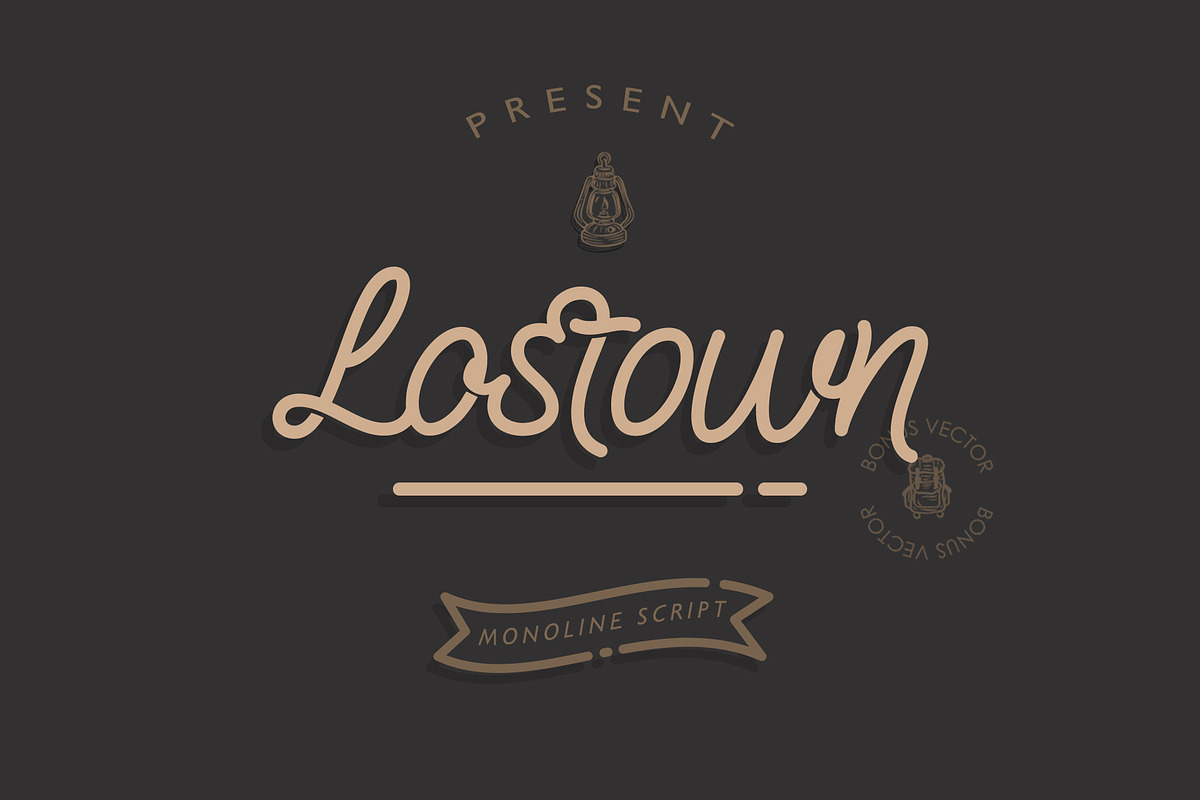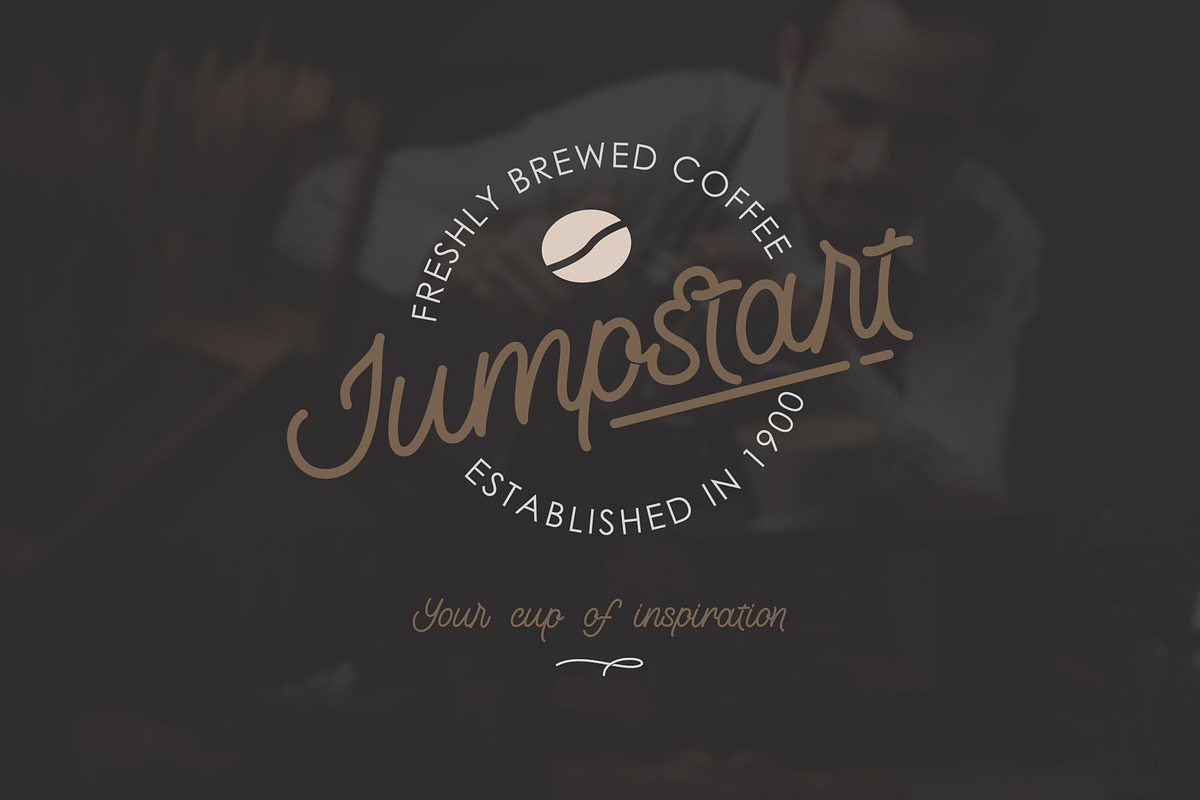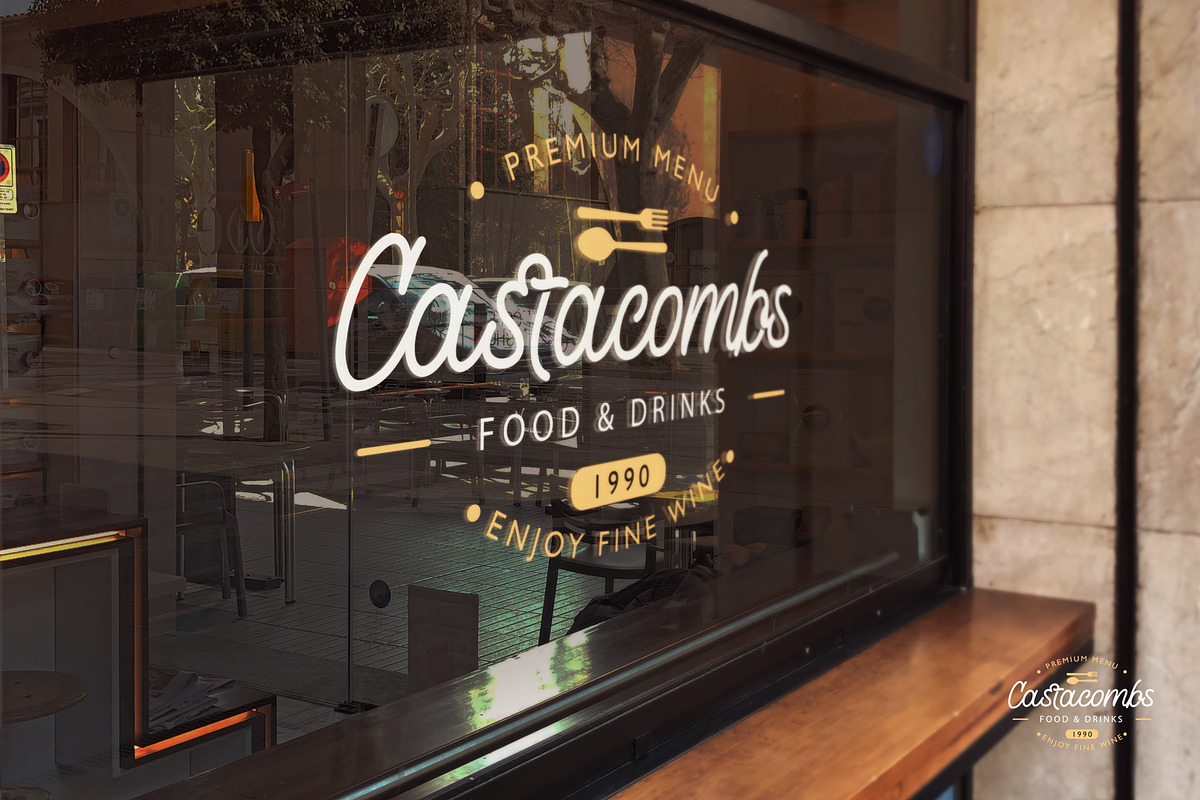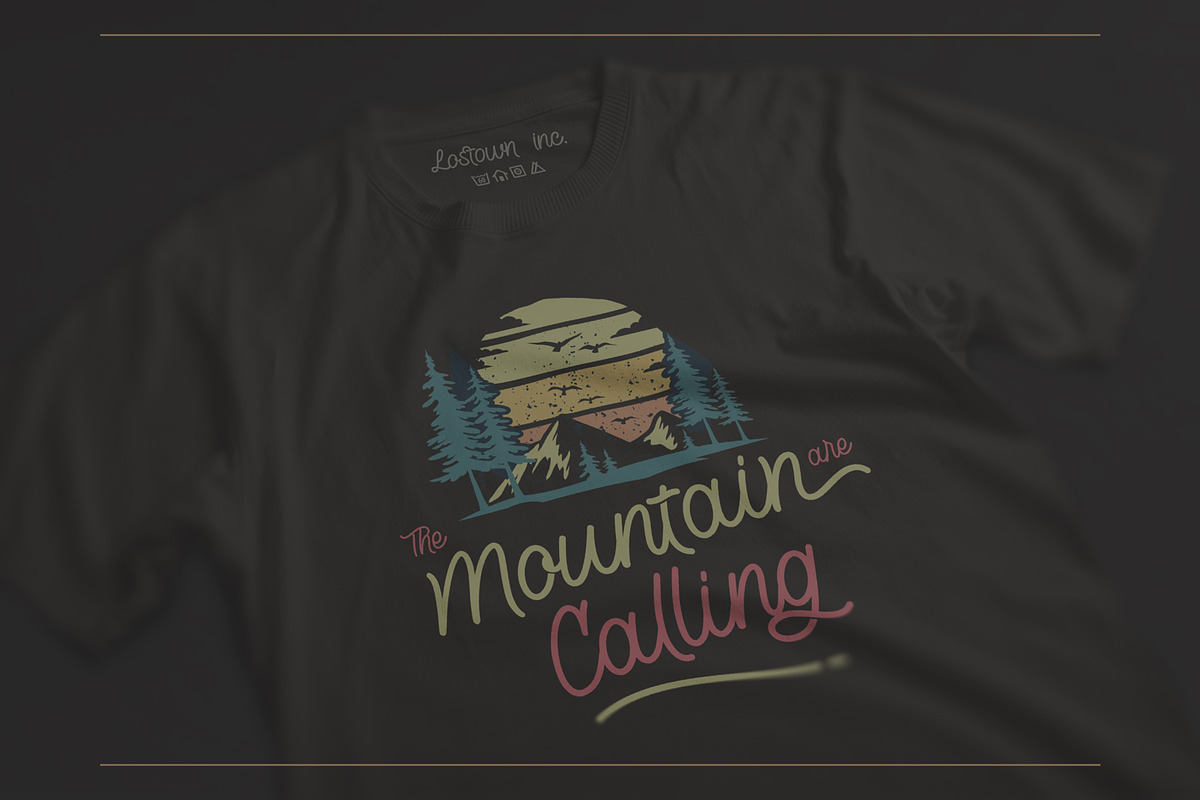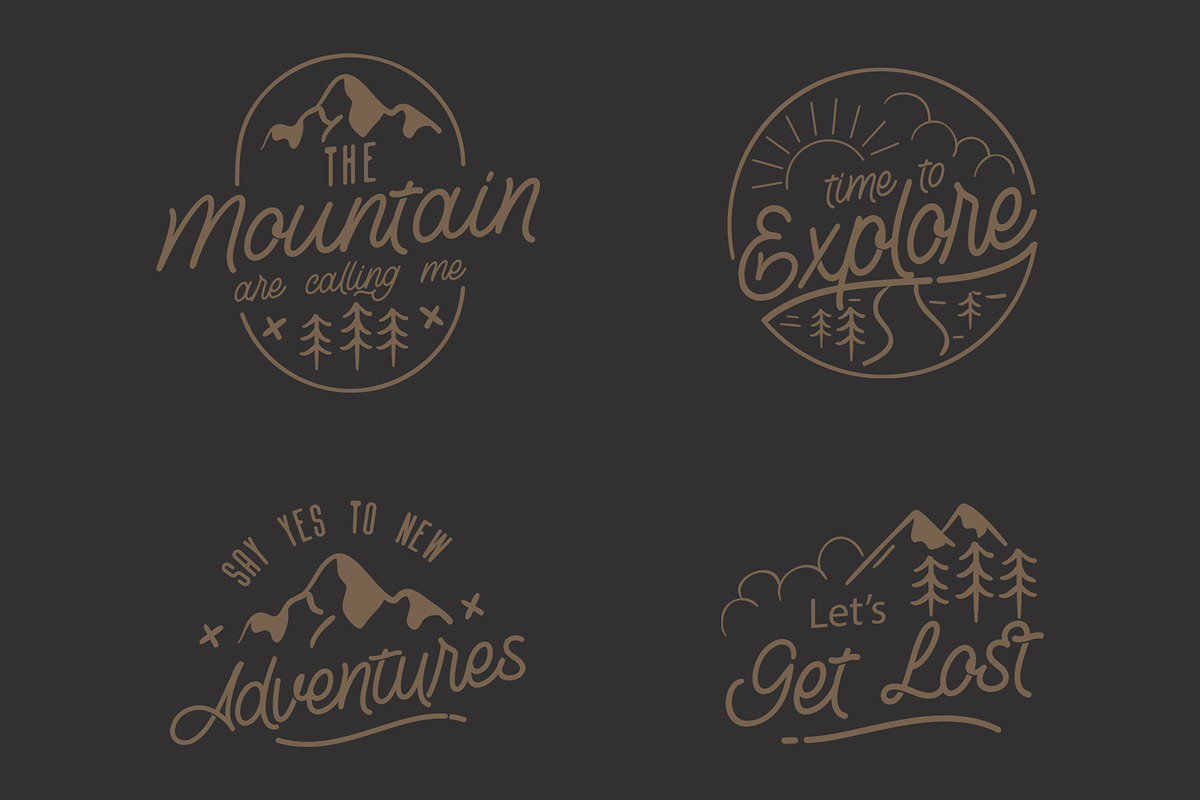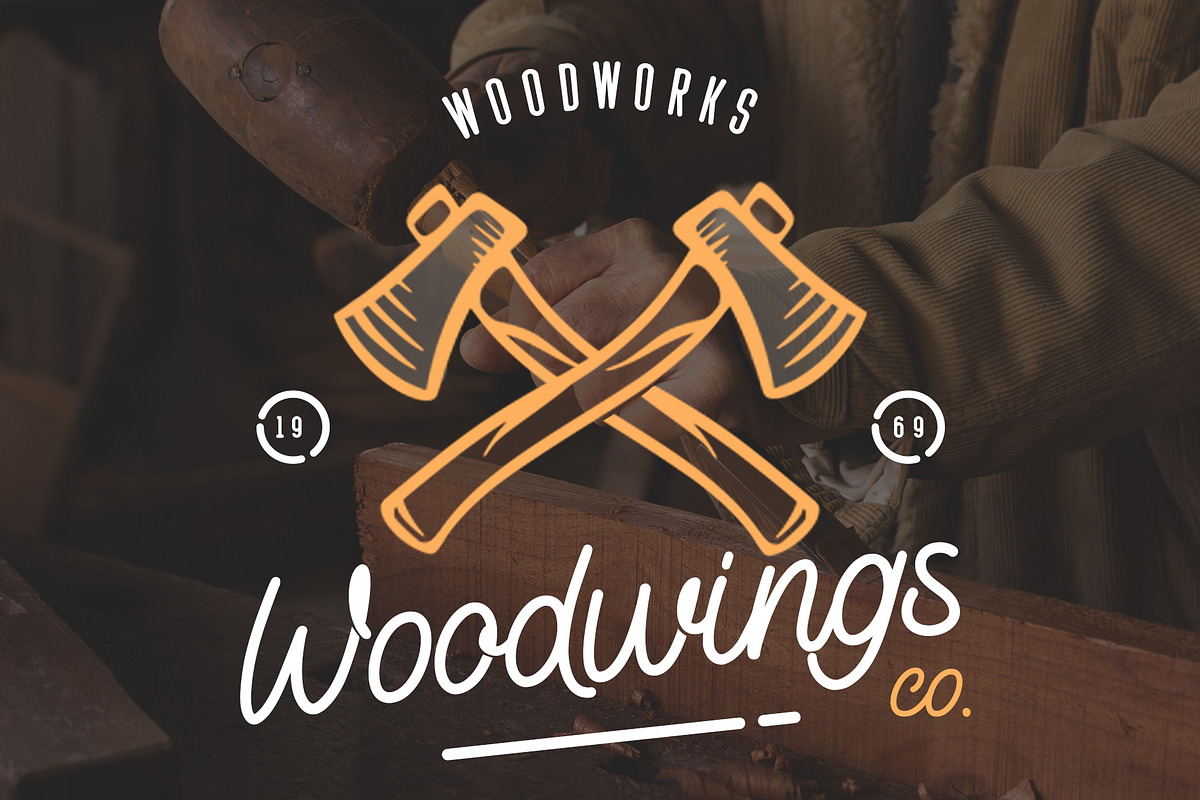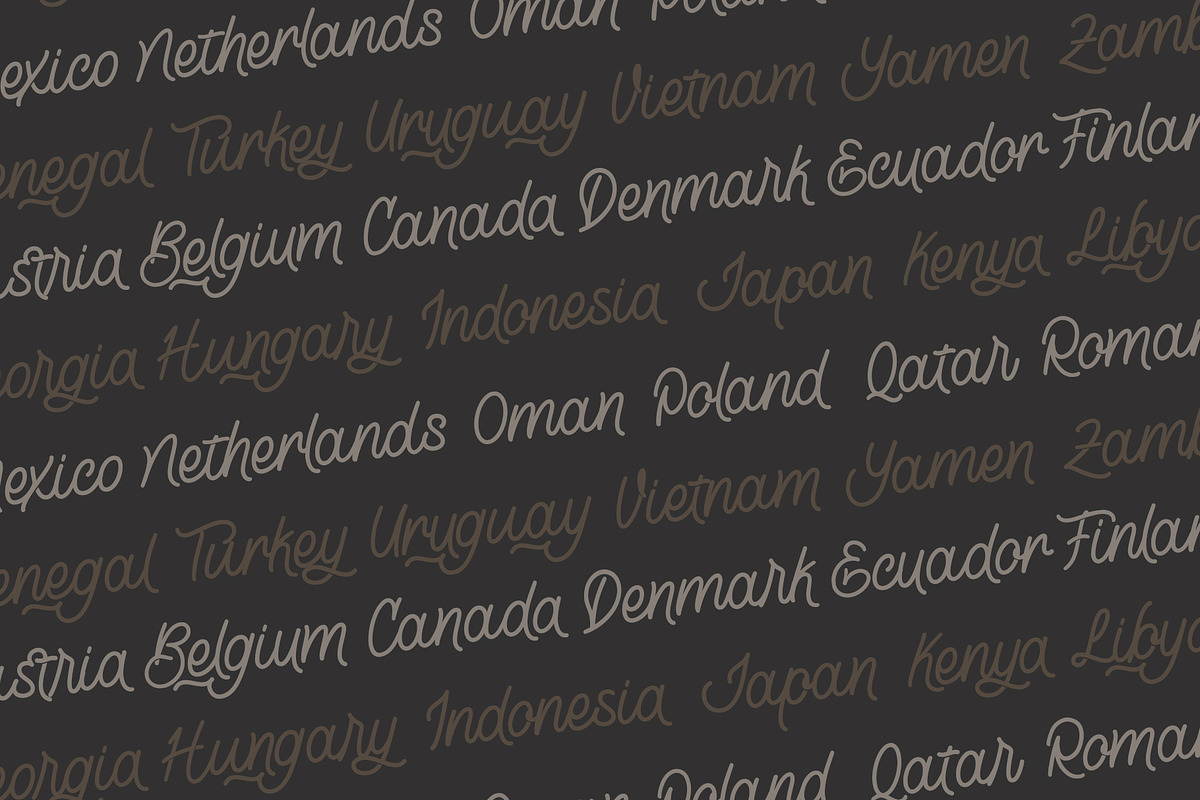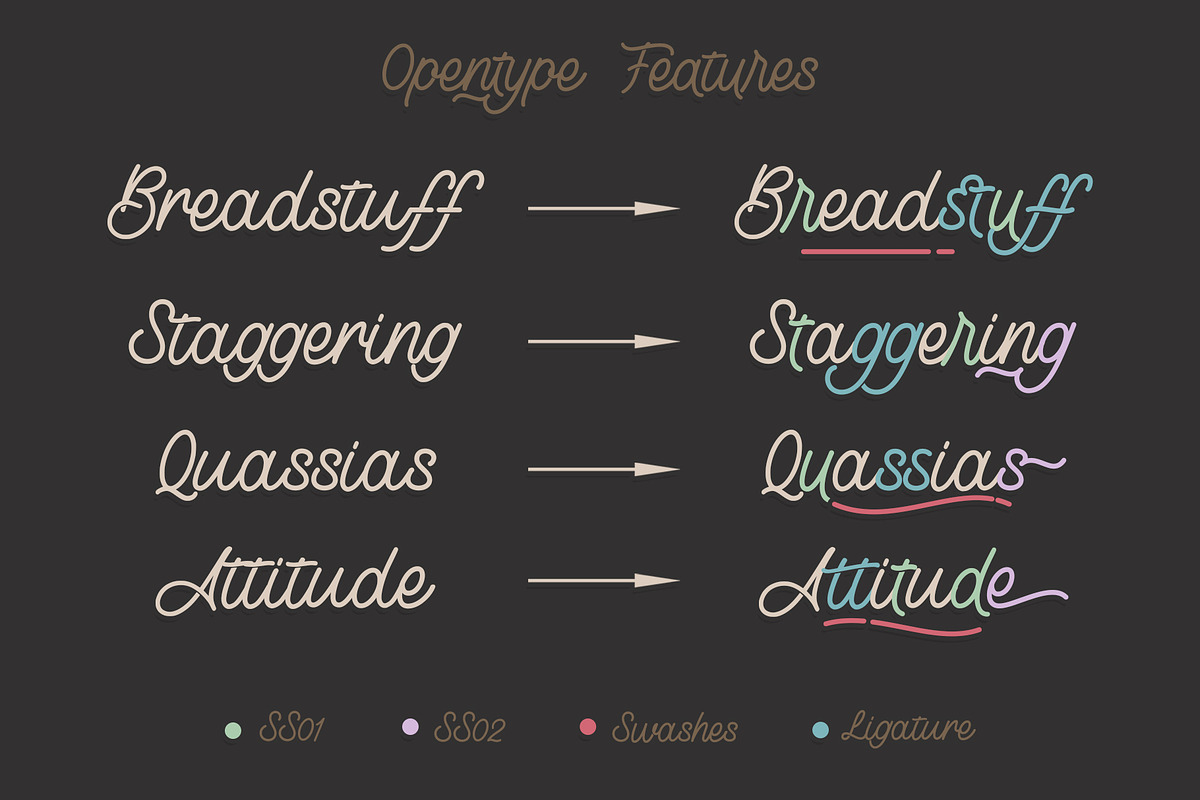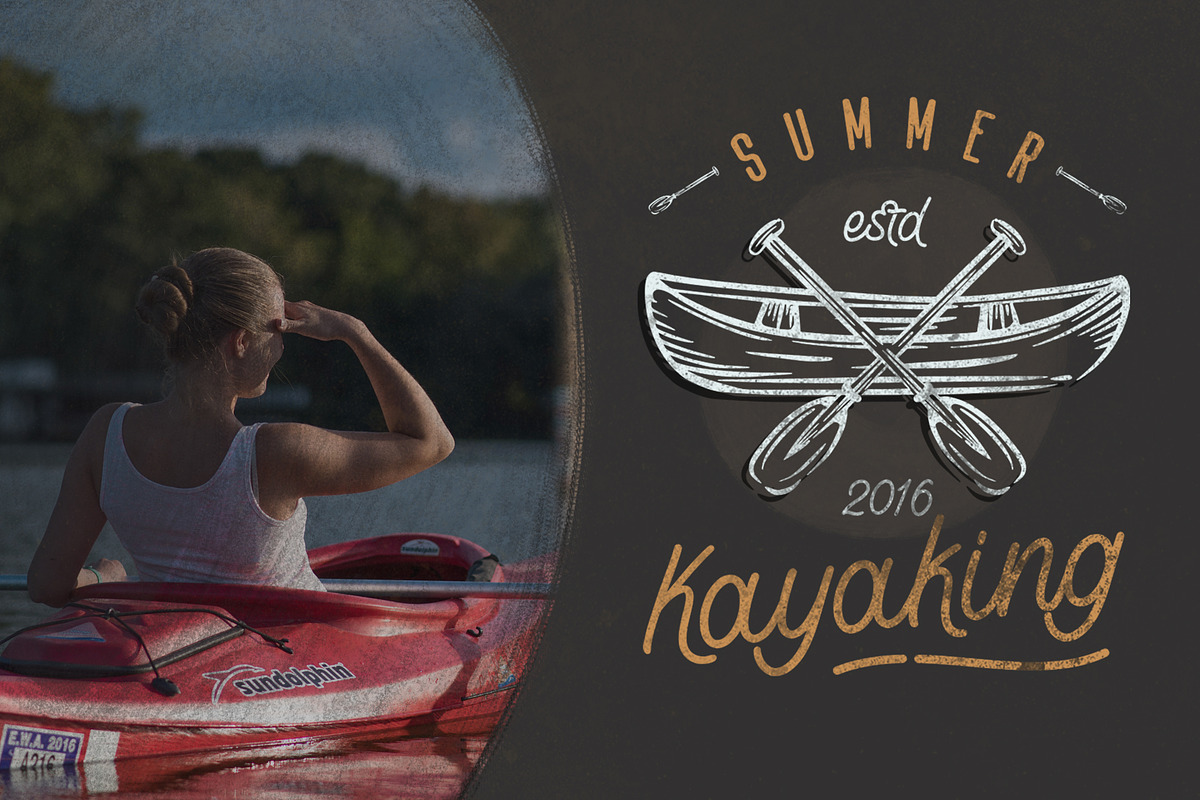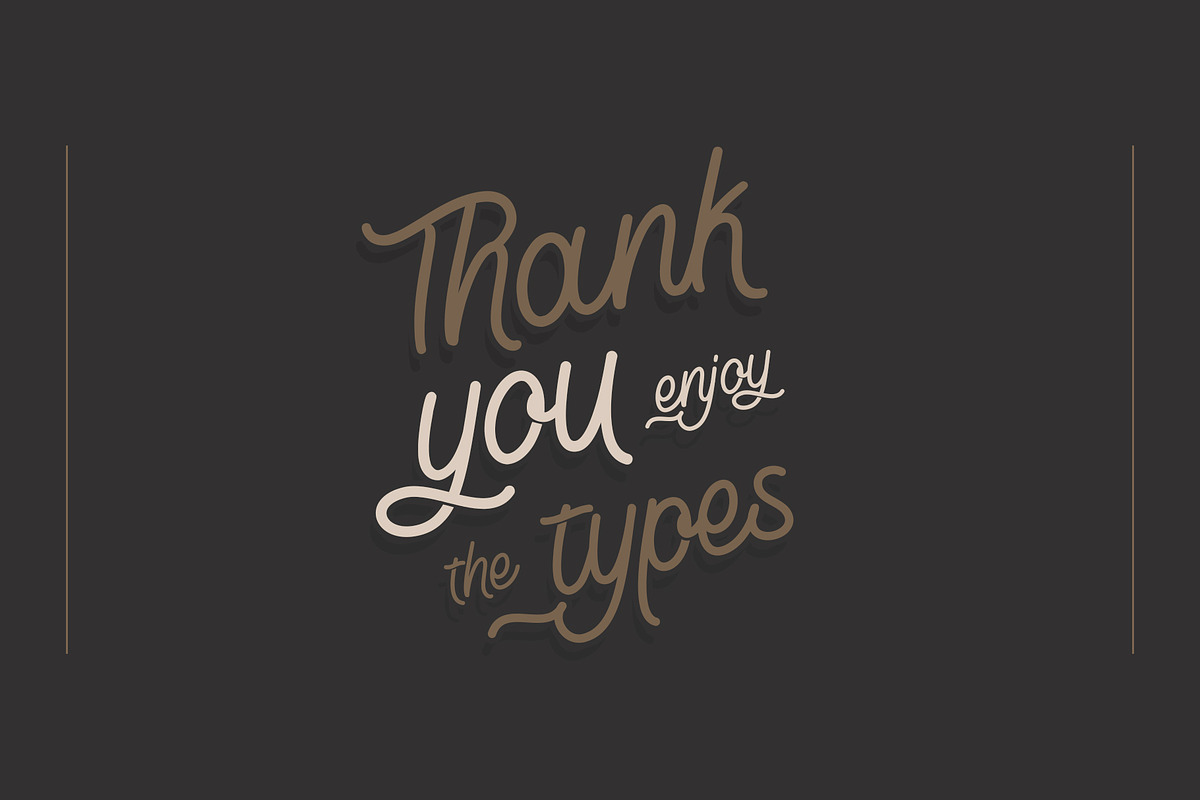
Lostown Monoline Script
Give your designs an authentic handcrafted feel. "Lostown Monoline" is perfectly suited to signature, stationery, logo, typography quotes, magazine or book cover, website header, clothing, branding, packaging design and more. A monoline script font containing upper and lowercase characters, numerals, a large range of punctuation, International language, ligatures, stylistic alternate and swashes.
- Lostown Regular
- Lostown Swashes